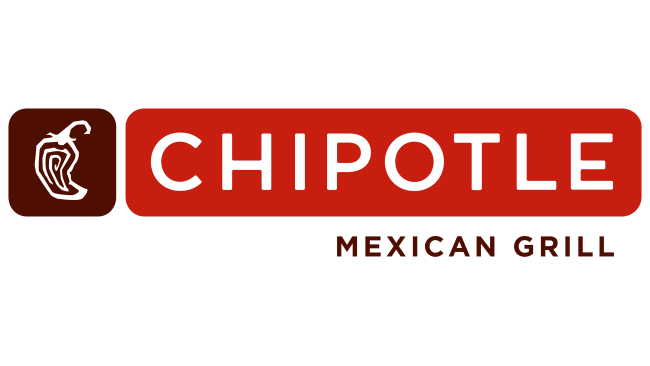
Chipotle Font
Chipotle font — likely Oblivian Semi-Bold, with a free alternative available — is the typography of a fast-casual brand that staked its entire identity on the claim that speed of service and quality of ingredients are not mutually exclusive, and chose a typeface whose clean, confident sans-serif proportions communicate exactly that argument: modern, direct, and possessed of a quiet authority that does not need to shout because the product speaks for itself. Founded in Denver in 1993 and now one of the most recognised fast-casual chains globally, Chipotle’s visual identity — the warm earthy palette, the hand-drawn illustration system, the confident wordmark — is a case study in how a food brand can communicate genuine values through design rather than merely claiming them in advertising copy. The freely available Chipotle Font Alternative channels this clean, ingredient-confident typographic register.